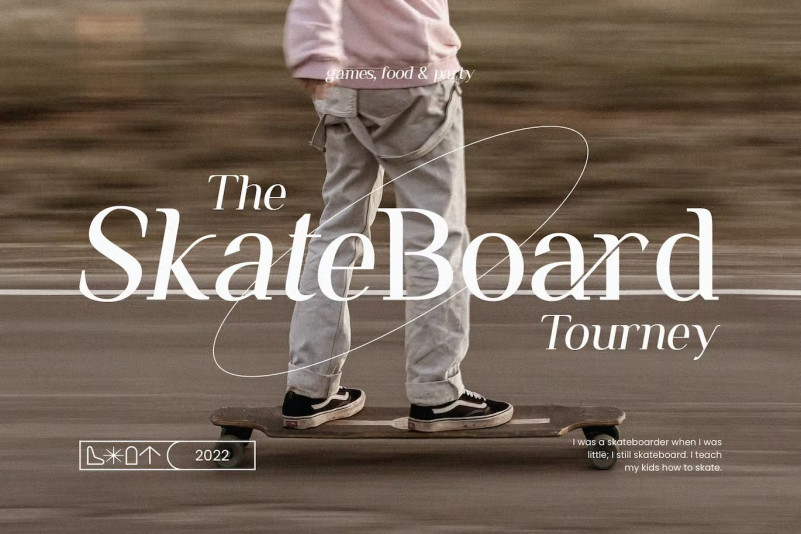
Remains Stepping Font
Remains Stepping Ligature Serif Font inspired by famous minimalist logo, perfect for designing templates, brochures, videos, brand ads, logos, invitations, layouts, elegant crafts, beauty design, etc